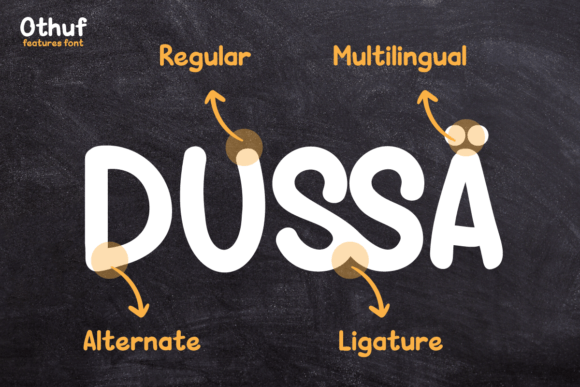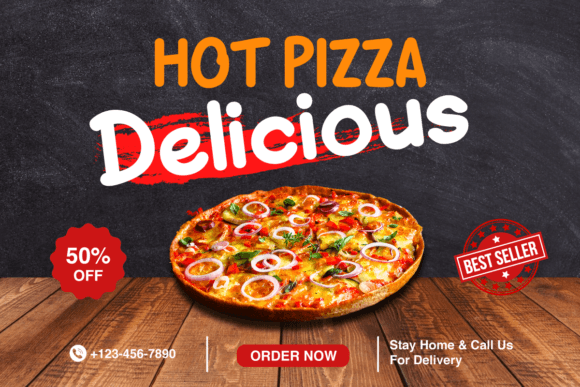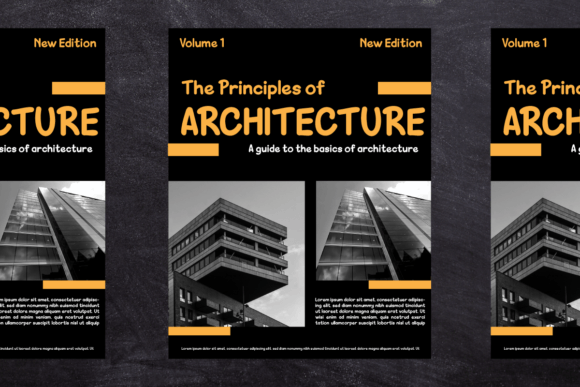
Introduction to Othuf Font
Have you ever been working on a design project, and as you’re searching for the perfect font to bring your ideas to life, you stumble upon that elusive combination of elegance and authenticity? For designers, finding the right font can make all the difference between a mediocre design and a masterpiece. That’s where the Othuf Font comes in – a game-changing design resource that perfectly captures the essence of handwritten script.
Imagine being able to add a touch of sophistication and personality to your designs with a single click. Othuf Font is the key to unlocking that creative potential, providing a high-quality design solution that’s perfect for a wide range of applications, from wedding stationery to logo design.
Key Features of Othuf Font
- Unique and stylish font that can add a touch of sophistication to any creative project, from branding to typography.
Honest Review: Othuf Font
I recently stumbled upon the Othuf Font and I must say it’s been a game-changer for my creative project. The high quality and unique design make it a fantastic addition to my design resource library.
Here’s what I love about the Othuf Font:
- ✨ Beautifully crafted letters with a transparent background, making it perfect for layering and design experimentation.
While the Othuf Font is an excellent choice, I do have a few limitations to mention:
- ⚠️ Limited character set, which may not be suitable for large-scale projects.
- ⚠️ Not as widely compatible as other fonts, which can cause issues with certain software or platforms.
Overall, I’m thoroughly impressed with the Othuf Font. Its unique design and high quality make it an excellent choice for creative projects, and the free download option is a definite bonus. While there are some limitations, I believe the benefits far outweigh the drawbacks.
Common Use Cases for Othuf Font
Othuf Font is ideal for a variety of creative projects, including logos, social media graphics, and presentations. Its transparent background and high-quality design make it perfect for use in any design software, including Canva, Adobe Photoshop/Illustrator, and PowerPoint/Word.